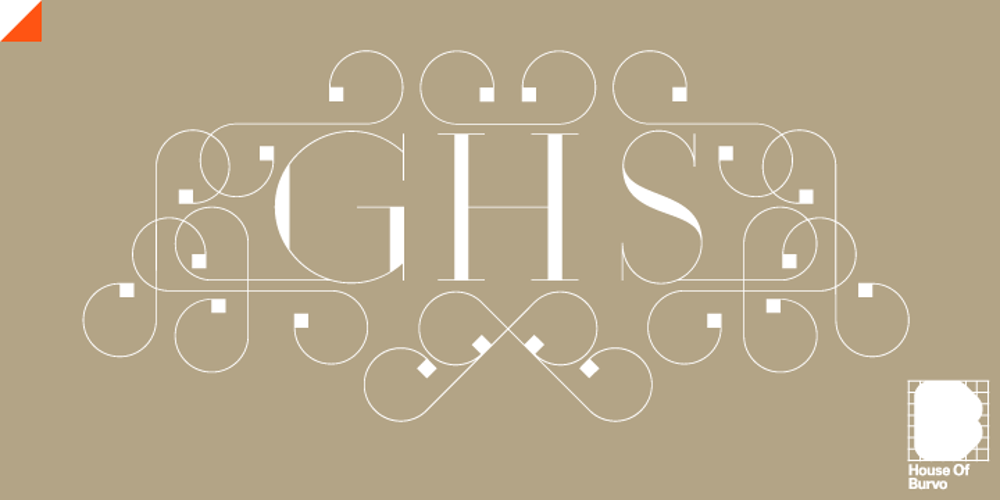
GHS font
GHS Font Family was designed by Matthew Burvill and published by HouseOfBurvo. GHS contains 24 styles and family package options. GHS is an original font from HouseOfBurvo, designed and made by Matthew Burvill. GHS stands for Geometric Hairline Serif, it is a serif typeface that is geometric in structure, it has strong vertical stress and its stroke is hairline thin. This gives it a fashionable, stylish appearance for headlines and display. The font has been designed to work primarily as any other font, but it also has special features that can add an extra dimension to your design. This feature is Layering. When using GHS you set your type with the “Key” font, and then when you’re happy with your layout, you can change the font to a layer containing only the Hairlines, and then copy and paste your text on top and change this second layer to a font containing only the Stress parts. You can then exercise more control over the appearance of your text than with any other typeface of its kind; for instance, you can offset your layers for varying degrees of distress, or use separate colors for each layer. You could treat one layer with a spot varnish so the text only becomes legible when reflecting light, or foil block the stress over the hairlines. You could even use the layers independently on an acetate sheet so the text is only readable with a “decoding” sheet. This font has many possibilities, and the specimen document intends to show some of these and how to create them.